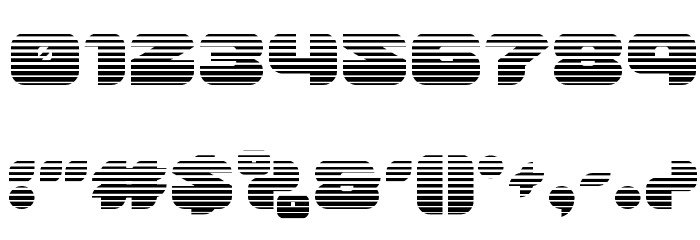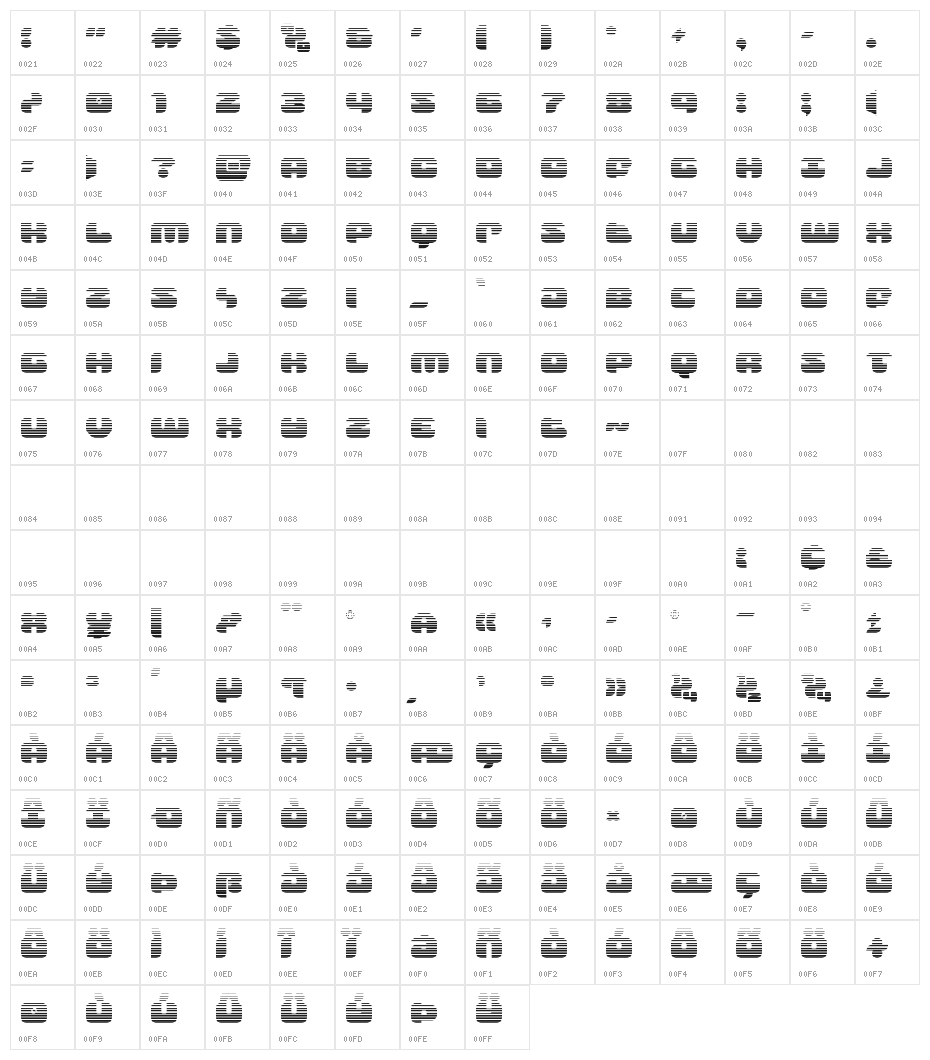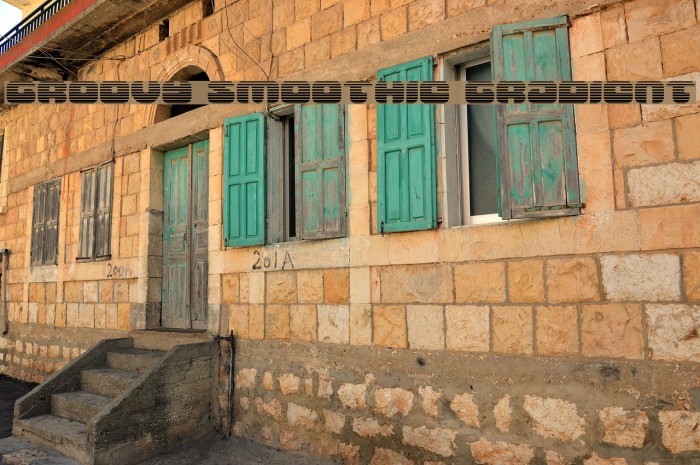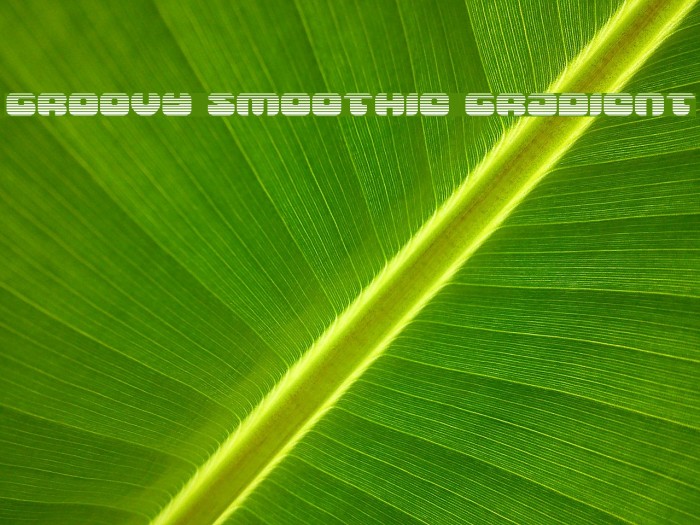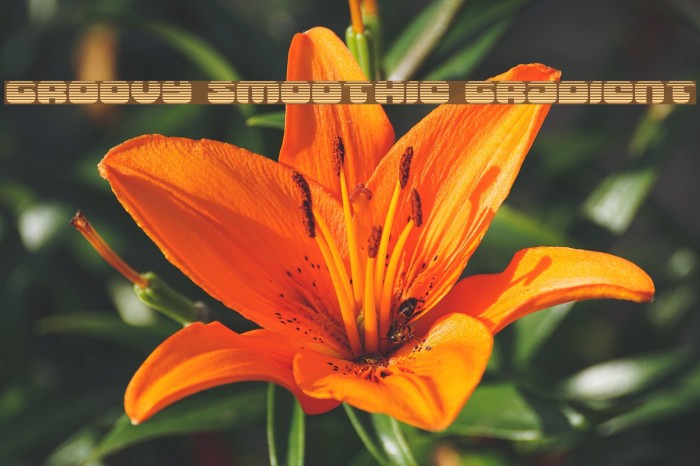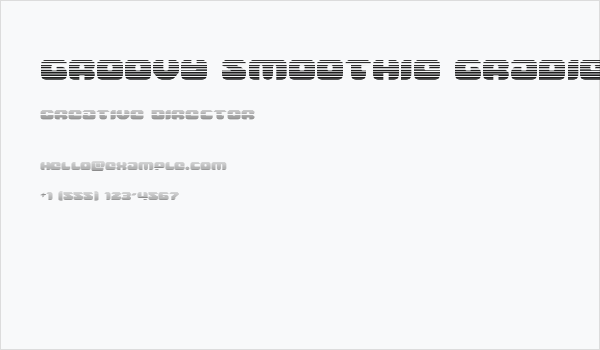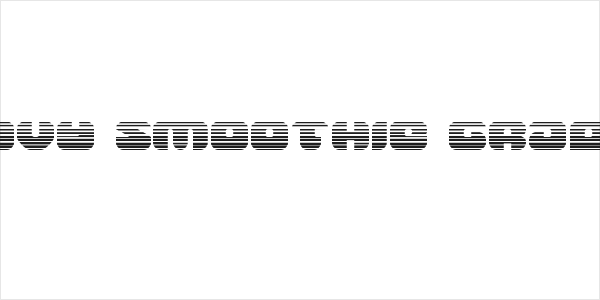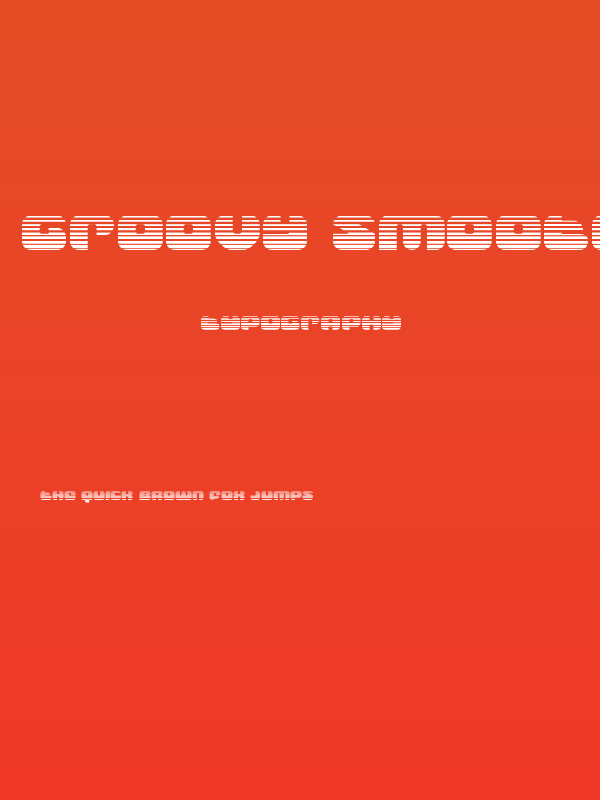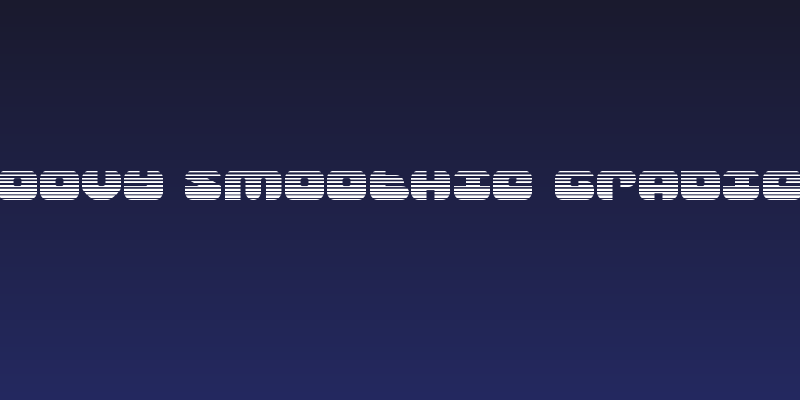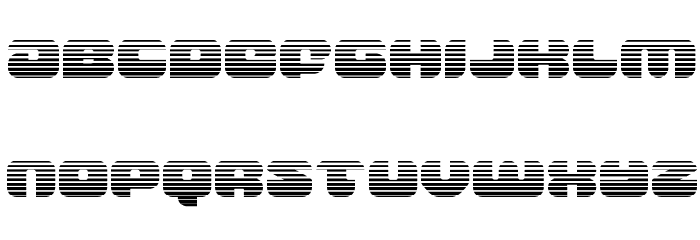
Groovy Smoothie Gradient Font
Groovy Smoothie Gradient Description
This font features a bold, futuristic design with horizontal stripes running through each character, creating a dynamic and eye-catching effect. The letters are wide and blocky, with a consistent thickness throughout, giving it a strong and stable appearance. The unique striped pattern adds a sense of movement and energy, making it ideal for projects that require a modern and edgy look. The font includes both uppercase and lowercase letters, numbers, and a variety of special characters, ensuring versatility in its application.